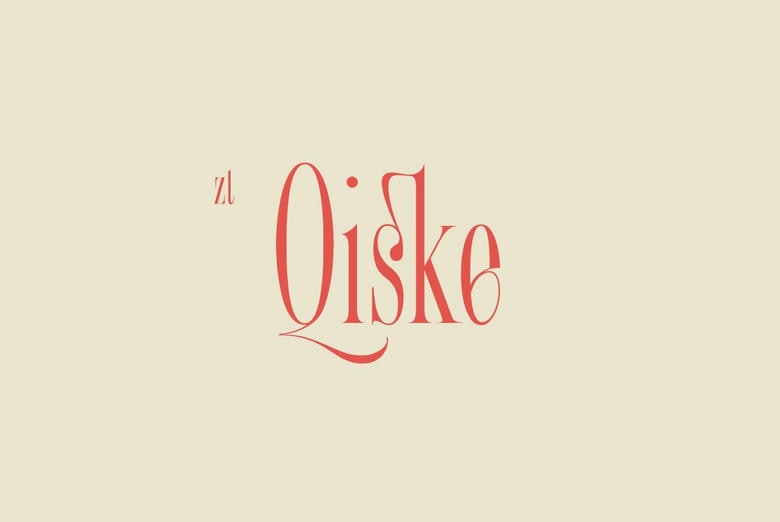
Qiske Font
ZT Qiske is a chic and stylish serif display font. It has a classy, elegant, and modern look that can be used for logos, branding, invitations, stationery, wedding designs, social media posts, and much more!
Qiske Serif Font